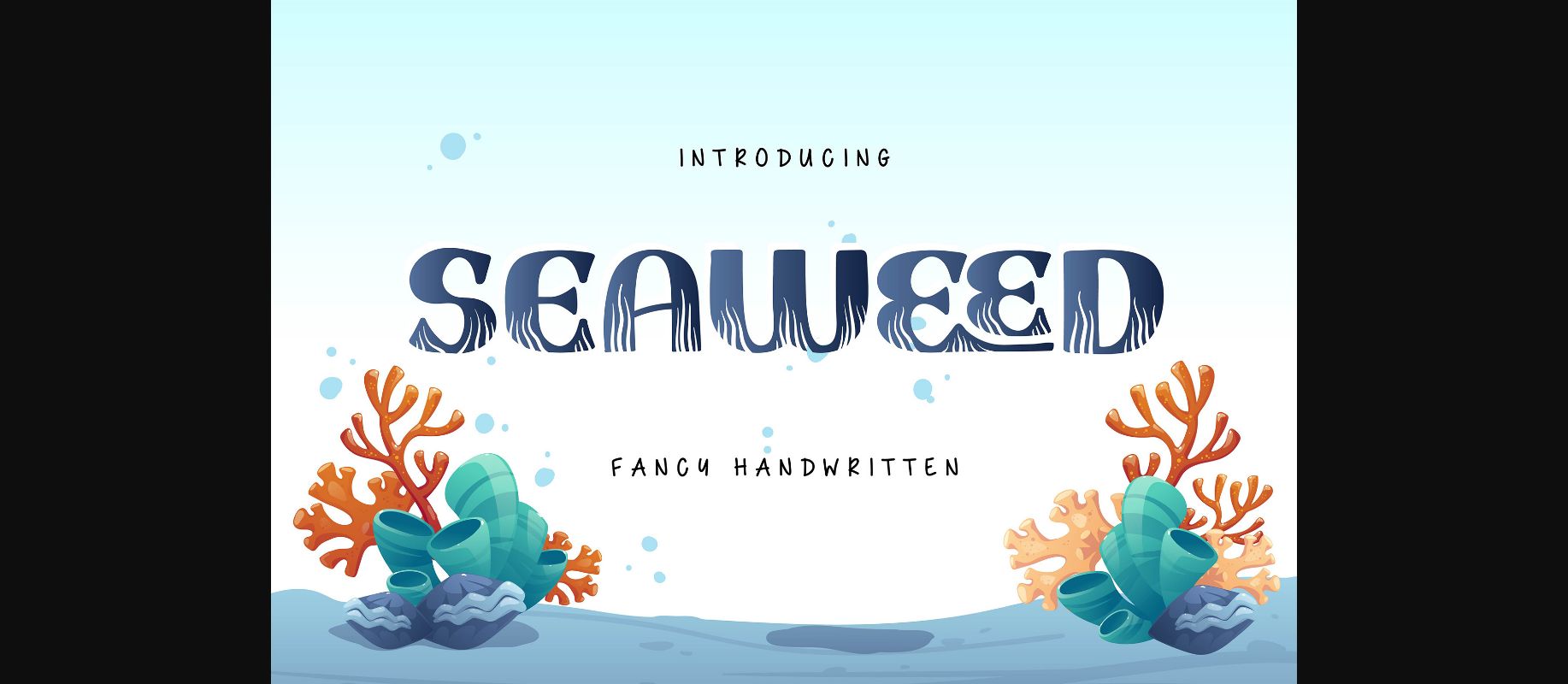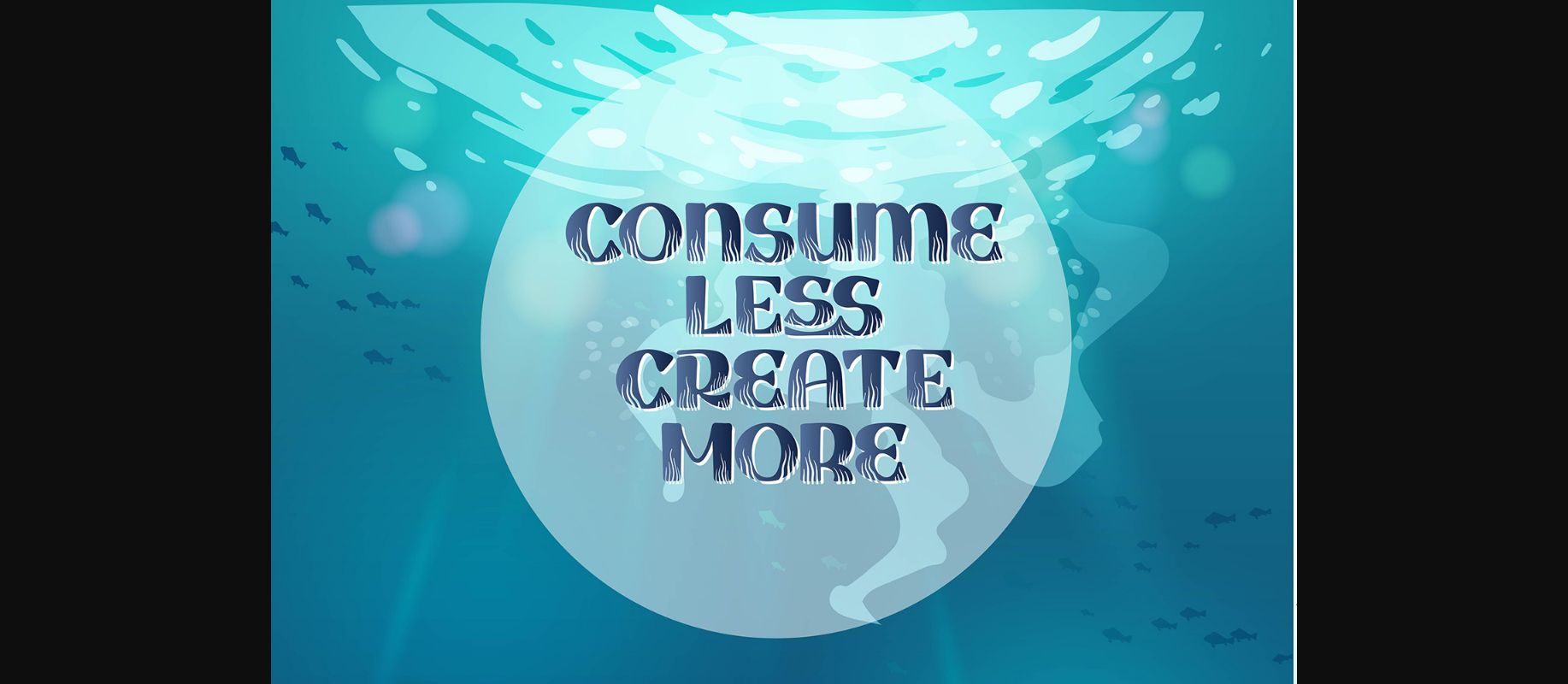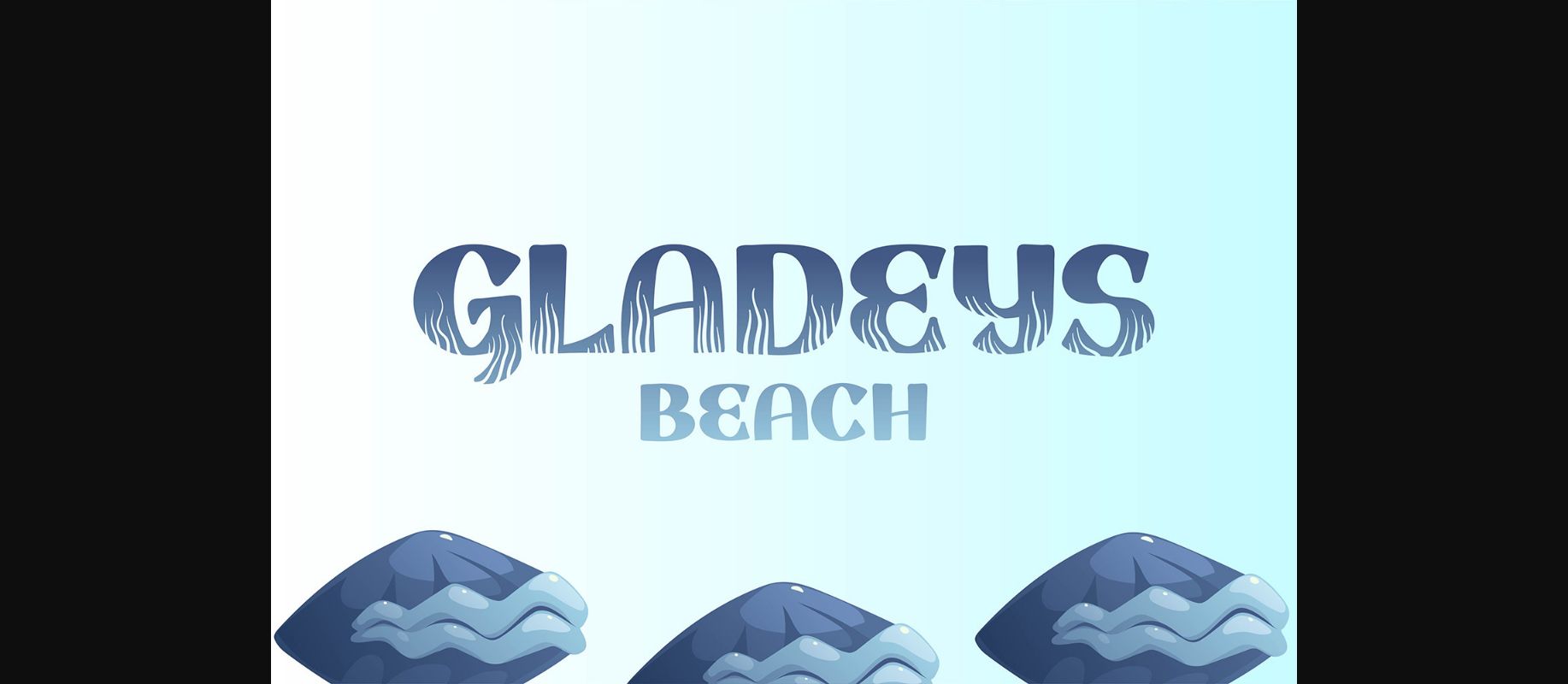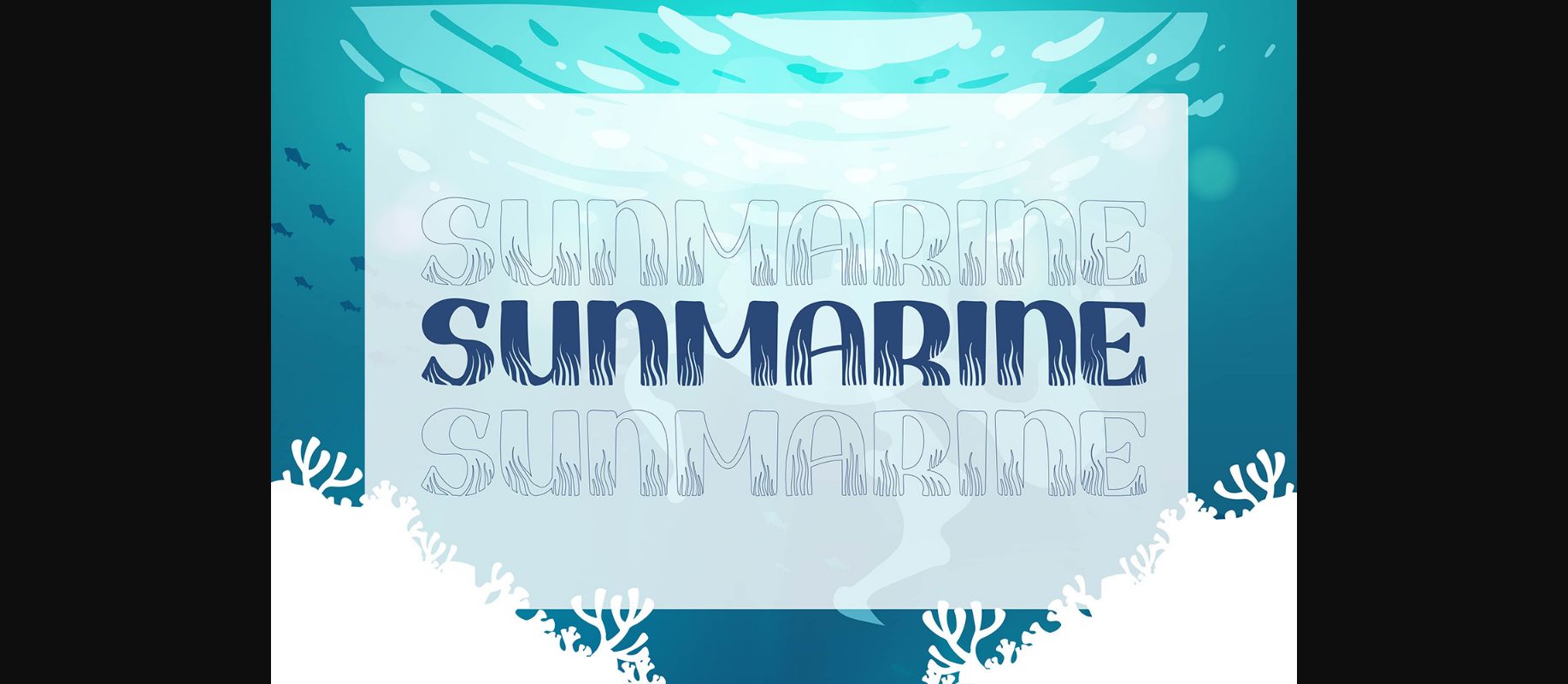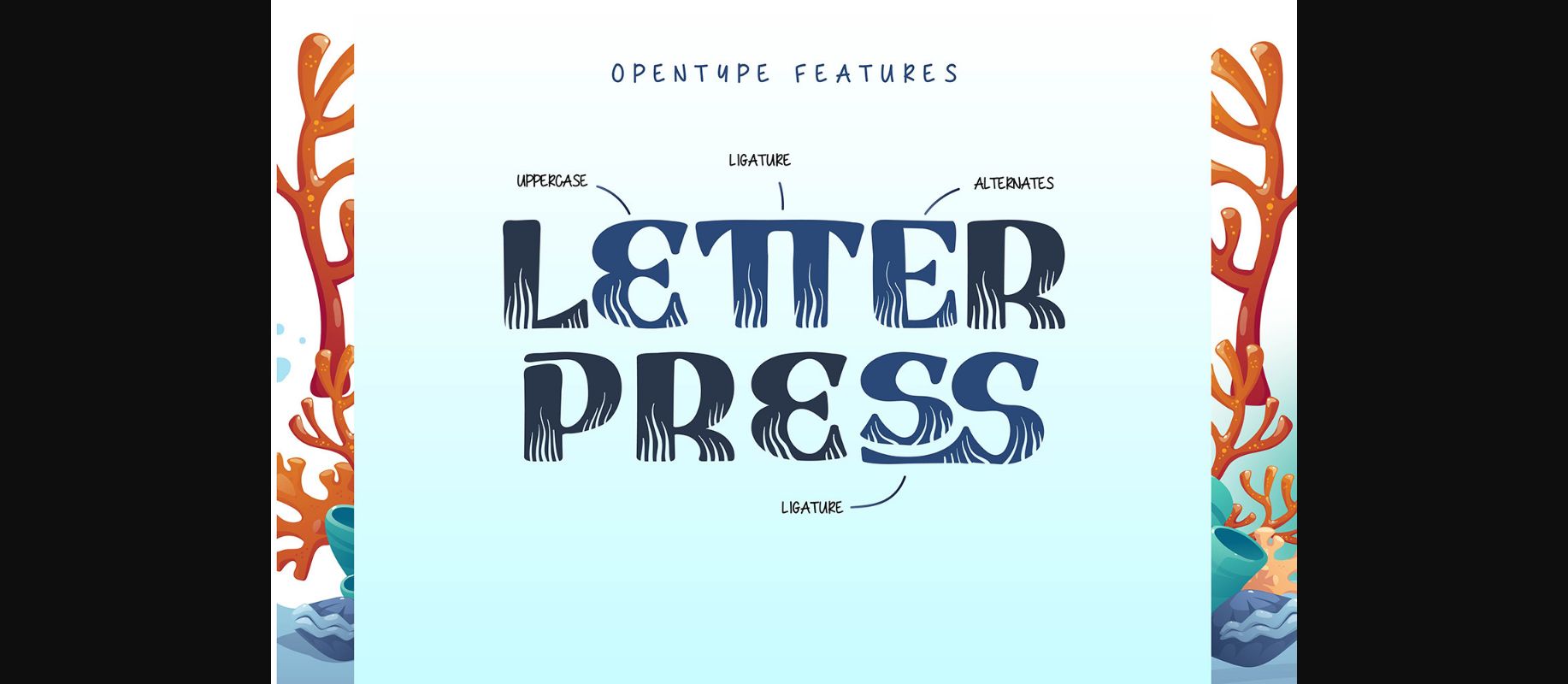
Seaweed Font
About Seaweed Font
Seaweed is a whimsical and cartoon-like decorative font. It embodies playfulness and authenticity and is the perfect choice for any children activity or school project. This font is PUA encoded which means you can access all of the glyphs and swashes with ease!